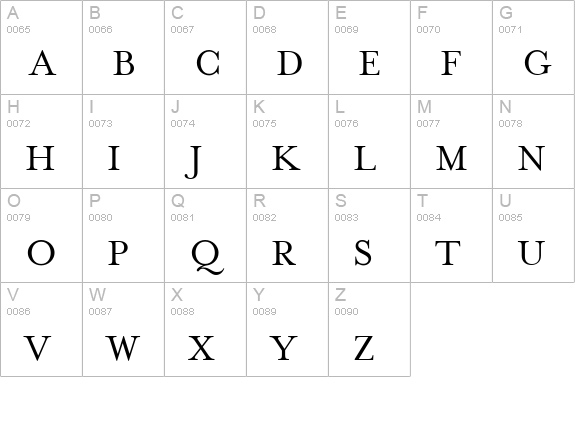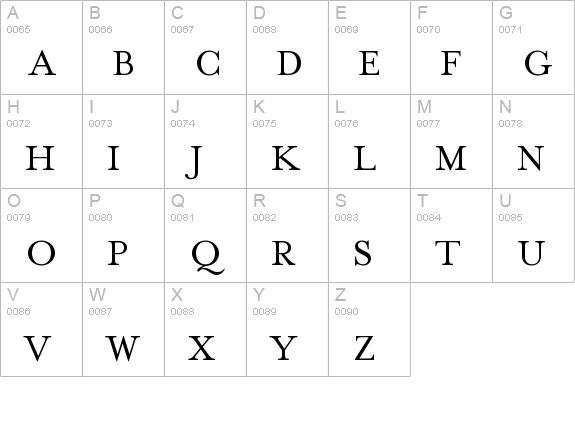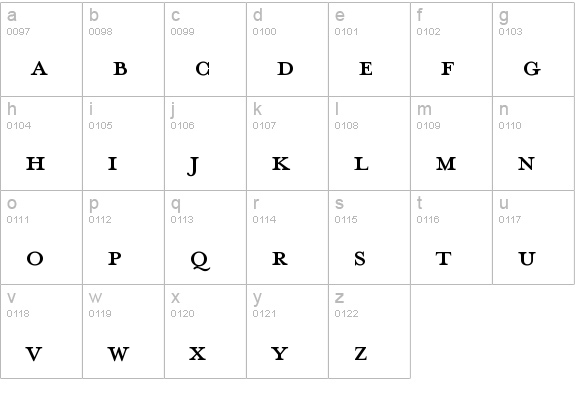
MrsEavesPetiteCaps Font Details
MrsEavesPetiteCaps font is a charming and elegant typeface that exudes sophistication and timeless beauty. This font features delicate, small capital letters that add a touch of refinement to any design project. Its classic and graceful appearance makes it ideal for use in invitations, headlines, and other creative endeavors. The best part about MrsEavesPetiteCaps font is that it is available for free download at FontsMarket.com. This means you can easily access this exquisite font and incorporate it into your projects without any cost. Whether you're looking to add a touch of elegance to your wedding invitations or create a stunning logo for your business, MrsEavesPetiteCaps font is the perfect choice. Download it today and elevate your designs with its timeless appeal.